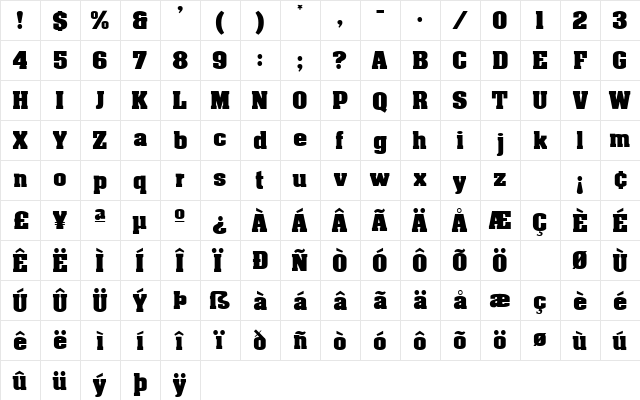
AcmeFont Regular
Design Context for AcmeFont Typeface
AcmeFont takes a measured approach to typography — its balanced proportions and neutral character make it a reliable workhorse for both digital and print work.